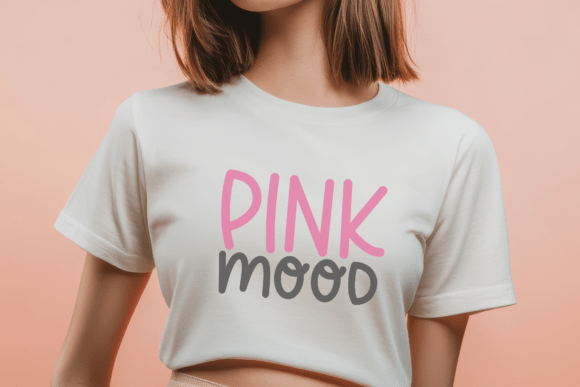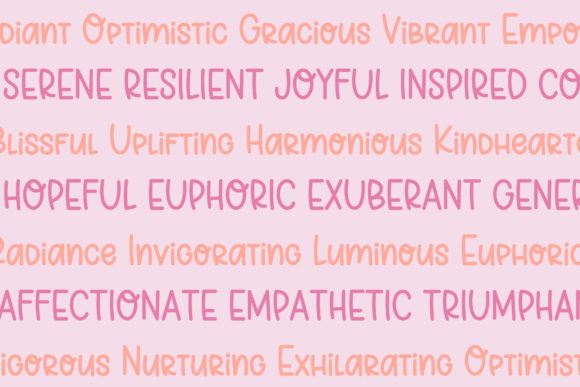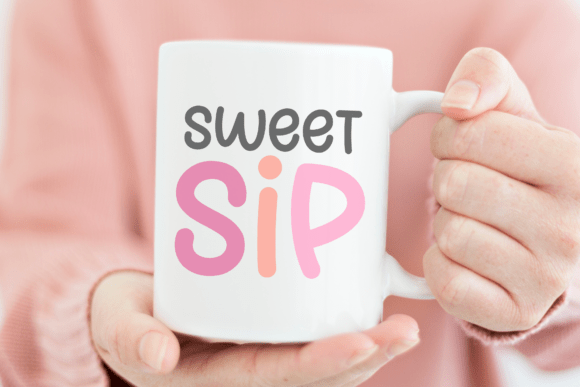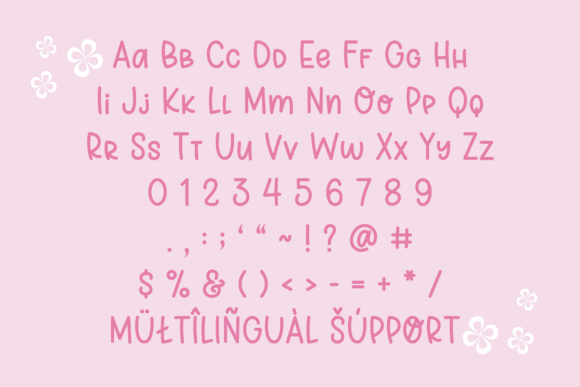
Embrace Pure Charm with the Dainty Bloom Font
Are you looking for a font that exudes warmth, friendliness, and a touch of playfulness? Look no further than the Dainty Bloom font, a soft and bubbly handwritten typeface designed to make every design feel like a warm embrace. This delightful font is perfect for designers and crafters who want to add a personal touch to their projects, making them feel curated and effortless.
The Charm of Dainty Bloom
The Dainty Bloom typeface features rounded, playful characters that capture a youthful and cheerful energy. Its thick, friendly strokes are easy to read, ensuring your message stands out whether it’s on a digital screen or physical merchandise. This font is an ideal choice for projects that prioritize friendliness and approachability, such as:
• Children’s birthday invitations
• Personalized greeting cards
• Creative product packaging
• Nursery designs
• Boutique craft shop branding
• Social media campaigns
Design Possibilities with Dainty Bloom
The Dainty Bloom font provides a hand-crafted aesthetic that feels both curated and effortless. Its versatility makes it a valuable tool for turning your design visions into reality. Here are some design ideas to get you started:
• Pair the Dainty Bloom font with pastel color palettes to create a soft, romantic look.
• Combine the font with floral illustrations to add a touch of whimsy and charm.
• Use the font for children’s party invitations, complete with playful graphics and bright colors.
• Create personalized greeting cards with the Dainty Bloom font, adding a special touch to any occasion.
Why Choose Dainty Bloom?
So, what sets the Dainty Bloom font apart from other typefaces? Here are just a few reasons why designers and crafters love this font:
• Friendliness: The Dainty Bloom font exudes warmth and approachability, making it perfect for projects that require a personal touch.
• Readability: The font’s thick, friendly strokes are easy to read, ensuring your message is conveyed clearly.
• Versatility: The Dainty Bloom font can be used for a wide range of projects, from digital designs to physical merchandise.
• Playfulness: The font’s rounded, playful characters add a touch of whimsy and charm to any design.
Tips for Using Dainty Bloom
To get the most out of the Dainty Bloom font, here are a few tips to keep in mind:
• Experiment with colors: Try pairing the font with different color palettes to create a unique look.
• Add illustrations: Combine the font with illustrations to add a touch of whimsy and charm.
• Play with textures: Experiment with different textures to add depth and interest to your design.
• Keep it simple: Don’t be afraid to keep your design simple and clean, allowing the font to take center stage.
The Dainty Bloom font is a versatile and charming typeface that’s perfect for designers and crafters who want to add a personal touch to their projects. With its rounded, playful characters and thick, friendly strokes, this font is sure to make every design feel like a warm embrace. Whether you’re designing for a nursery, a boutique craft shop, or a social media campaign, the Dainty Bloom font is an ideal choice. So why wait? Embrace the pure charm of the Dainty Bloom font and start creating designs that feel curated and effortless.